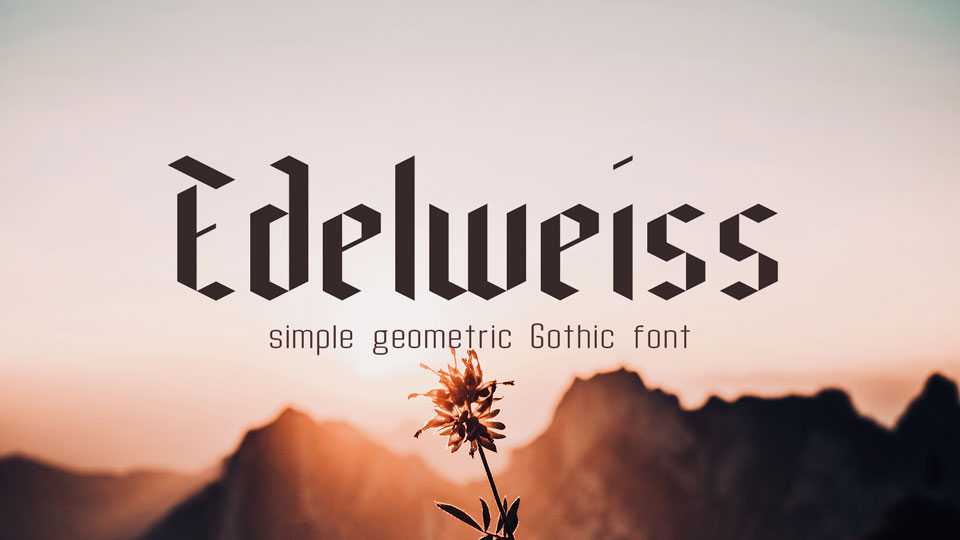
Download Edelweiss font, a simple geometric modern Gothic typeface. Great for logos, headlines, posters and other authentic designs.
Designer: Nicolas Barré